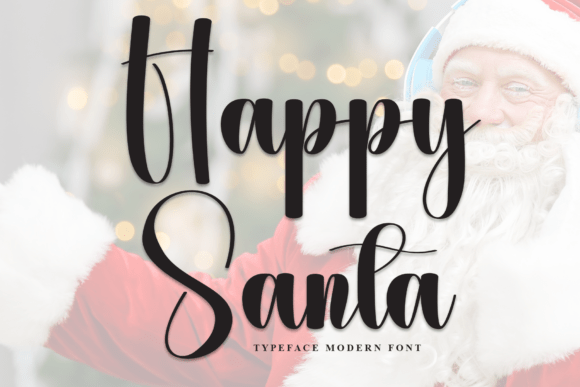
Discover the Joy of Happy Santa Font
As a designer, have you ever stumbled upon a font that instantly sparks joy and puts a smile on your face? For me, that moment came when I discovered the Happy Santa Font – a handcrafted script font that radiates warmth and sweetness. Its endearing character is the perfect addition to any design that needs a dash of whimsy.
Whether you’re creating wedding invitations, heartfelt cards, or any other design that requires a touch of magic, the Happy Santa Font is the perfect companion. Its simplicity and charm make it a valuable asset for designers who want to add a playful twist to their work. By incorporating the Happy Santa Font into your designs, you’ll infuse a sense of wonder and delight that will leave a lasting impression on your audience.
Key Features of “Happy Santa Font”
- Character Set: The font includes a comprehensive set of characters, including uppercase and lowercase letters, numbers, punctuation marks, and special characters, making it suitable for various applications.
- Unique Characteristics: The font features a playful, festive design with bold lines and rounded edges, making it perfect for holiday-themed projects and advertisements.
Happy Santa Font Review
Overall, I think the Happy Santa Font has some great qualities that make it a fun addition to any project. ✨ One of the things I like most about it is its playful and whimsical feel, which is perfect for holiday-themed designs. The font’s unique style and characters add a touch of magic to any text, making it great for titles, headings, and other display text.
However, there are a few limitations to keep in mind. ⚠️ One of the main issues is that the font’s characters can be a bit inconsistent, which may cause some layout issues if you’re not careful. Additionally, some of the characters may not render properly on certain devices or in certain contexts, which could be a problem if you’re planning to use the font in a wide range of environments.
- Playful and whimsical feel
- Unique style and characters
- Great for holiday-themed designs
- Perfect for titles, headings, and other display text
In terms of overall impression, I think the Happy Santa Font is a great choice for designers who want to add some holiday cheer to their projects. While it may have some limitations, the font’s unique style and playful feel make it a fun and engaging addition to any design.
The Happy Santa Font is perfect for:
Creating festive holiday cards and invitations.
Designing Christmas-themed social media graphics and posters.
Adding a touch of holiday cheer to business branding and marketing materials.
Tips for getting the most out of the Happy Santa Font:
Use it in combination with other festive fonts and graphics for a cohesive look.
Don’t be afraid to get creative and add your own personal touch to your designs.
Great Vibes is a beautiful, elegant script font perfect for adding a touch of sophistication to your designs. It’s ideal for use in headings, titles, and quotes, and works well in both digital and print media.
Compared to Happy Santa Font, Great Vibes has a more refined and luxurious feel, making it suitable for high-end branding and marketing materials. While Happy Santa Font has a playful, festive vibe, Great Vibes is more versatile and can be used year-round.
Pacifico is a stunning, modern script font that exudes relaxation and calmness. It’s perfect for use in beach-themed designs, travel branding, and wellness-related projects.
Compared to Happy Santa Font, Pacifico has a more laid-back, casual feel, making it ideal for designs that require a sense of serenity. While Happy Santa Font is perfect for festive and playful designs, Pacifico is better suited for designs that need to evoke a sense of calmness and tranquility.